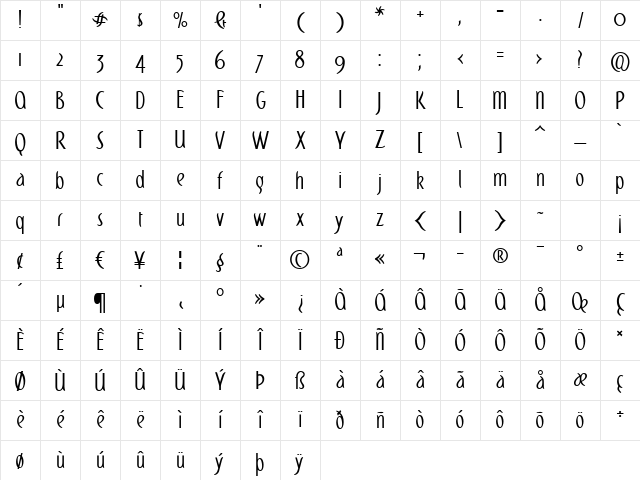
Domingo Regular
Design Context for Domingo
Domingo is a composed and adaptable typeface that performs quietly and consistently across a wide range of design contexts.
Pro Tip: Use Domingo in both headline and body roles to test its range before committing to a single application.